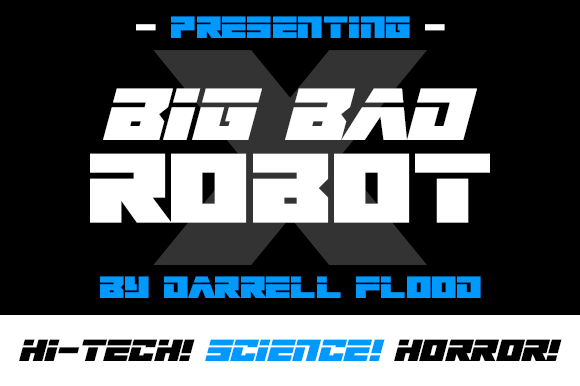
Unleash Your Creativity with Big Bad Robot Font
In the world of typography, fonts play a crucial role in conveying messages, expressing emotions, and creating visual identities. For designers and crafters, finding the perfect font can be a daunting task, especially when looking for something that makes a statement. This is where Big Bad Robot Font comes in – a bold, thick lettered display font that’s sure to elevate your creative projects.
The Power of Big Bad Robot Font
Big Bad Robot Font is a game-changer for anyone looking to add a touch of uniqueness to their designs. Its imposing presence and uniquely shaped letters make it an ideal choice for a wide range of creations, from posters and flyers to logos and branding materials. Whether you’re a seasoned designer or a DIY enthusiast, this font is sure to grab attention and leave a lasting impression.
Key Features of Big Bad Robot Font
• Bold and Thick Lettering: Big Bad Robot Font boasts a robust and sturdy design, making it perfect for headlines, titles, and emphasis text.
• Uniquely Shaped Letters: Each letter has a distinct shape, setting it apart from more traditional fonts and adding a touch of personality to your designs.
• High Versatility: From digital media to print materials, Big Bad Robot Font adapts seamlessly to various mediums and applications.
Design Applications for Big Bad Robot Font
The versatility of Big Bad Robot Font makes it suitable for a multitude of design projects. Here are a few ideas to get you started:
• Posters and Flyers: Create eye-catching promotional materials that demand attention.
• Logos and Branding: Establish a strong visual identity with a bold and memorable logo.
• Social Media Graphics: Stand out on social media platforms with striking graphics and typography.
• Packaging Design: Add a unique touch to product packaging and make your brand more noticeable.
Tips for Using Big Bad Robot Font Effectively
To maximize the impact of Big Bad Robot Font, consider the following tips:
• Use it Sparingly: Due to its bold nature, Big Bad Robot Font works best when used sparingly, such as for headlines or key messages.
• Pair with Complementary Fonts: Combine it with simpler fonts for body text to create visual contrast and hierarchy.
• Experiment with Colors and Effects: Don’t be afraid to try out different colors, textures, and effects to enhance the font’s appearance.
Font Name Big Bad Robot Font
Author Dadiomouse
Big Bad Robot Font is more than just a font – it’s a tool for creative expression and a means to make your designs stand out. Its bold and unique characteristics make it an excellent choice for designers and crafters looking to leave a mark. Whether you’re working on a commercial project or a personal endeavor, Big Bad Robot Font is sure to bring your ideas to life in a big way.